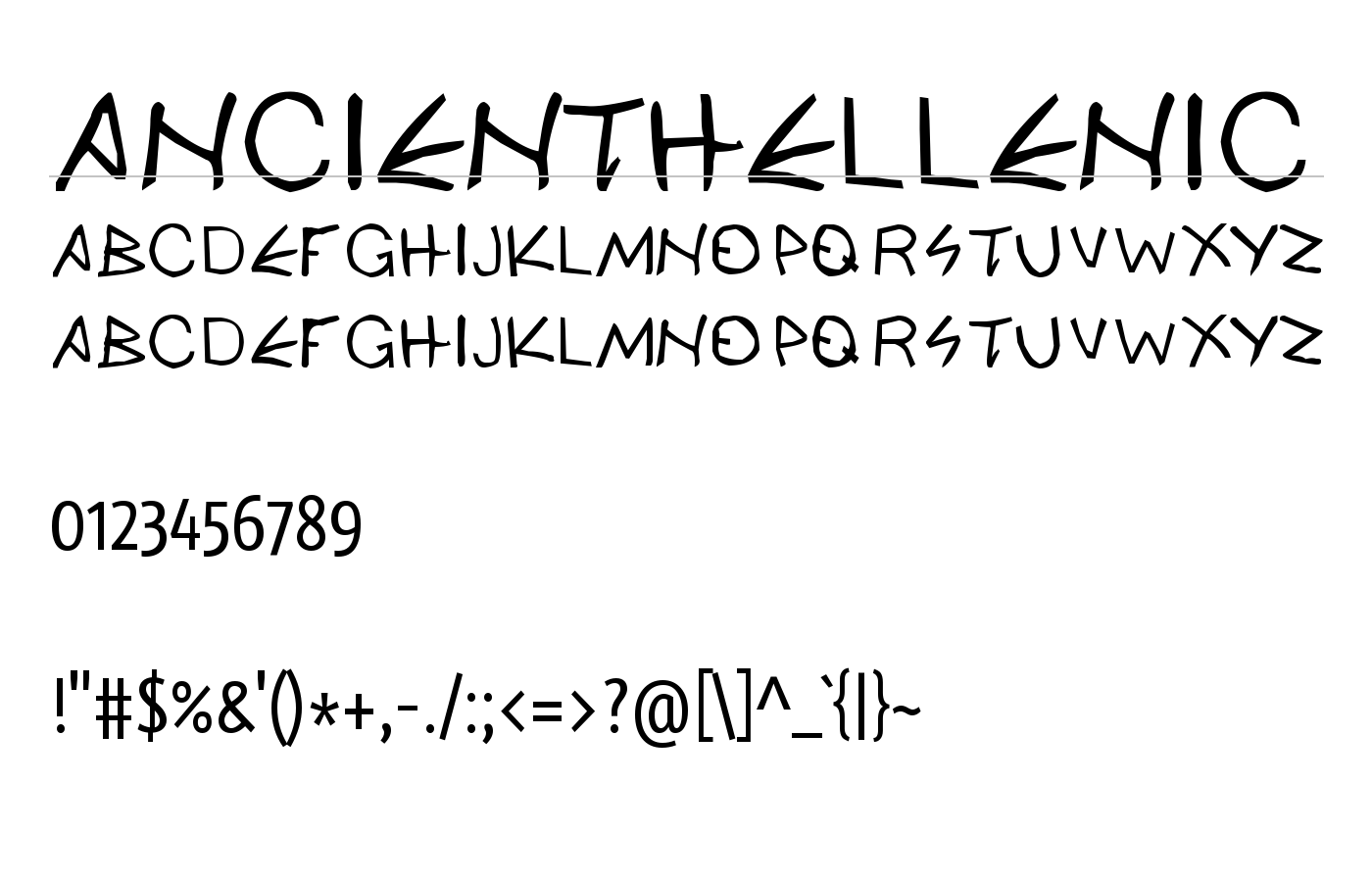
AncientHellenic is a distinctive sans serif display font inspired by ancient Greek script, featuring irregular, angular letterforms with a hand-drawn quality that evokes historical authenticity. Its medium weight and slightly condensed style combined with sharp, dynamic strokes give it a unique, artistic feel perfect for creative projects wanting to suggest history, mythology, or cultural heritage. This font works wonderfully for logos, posters, and themed designs where a bold, expressive look is desired rather than long body text.
ancientHellenic Font
About ancientHellenic Font